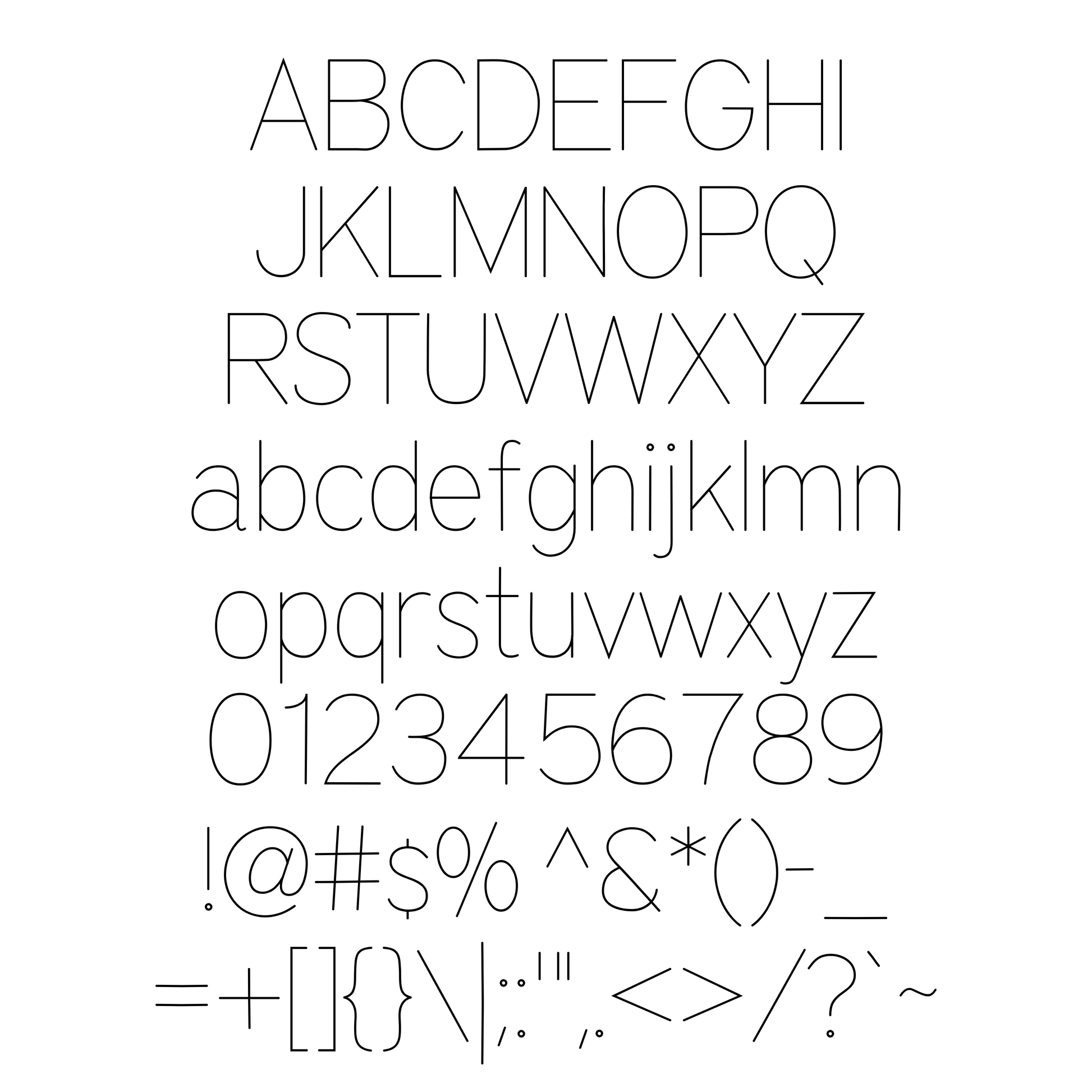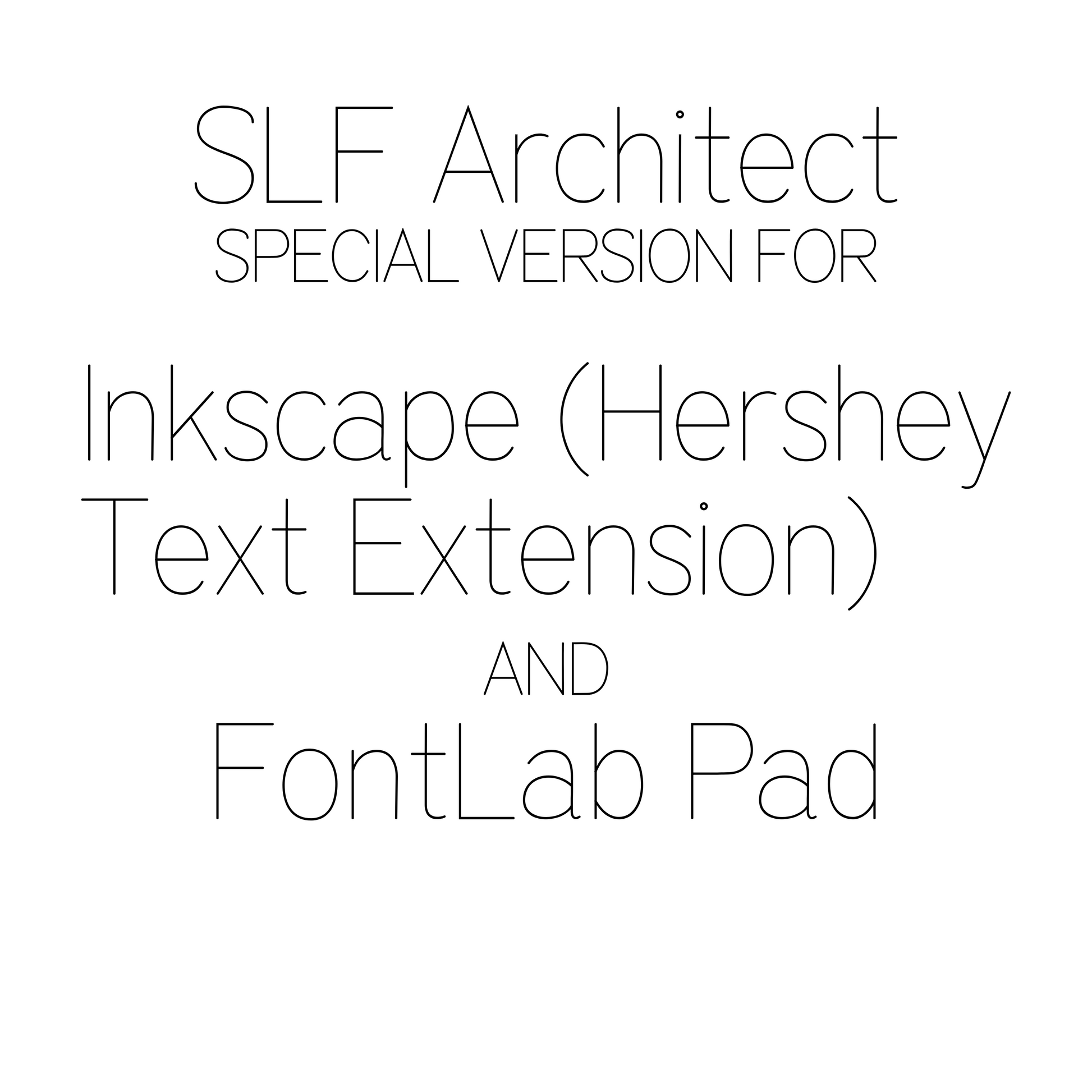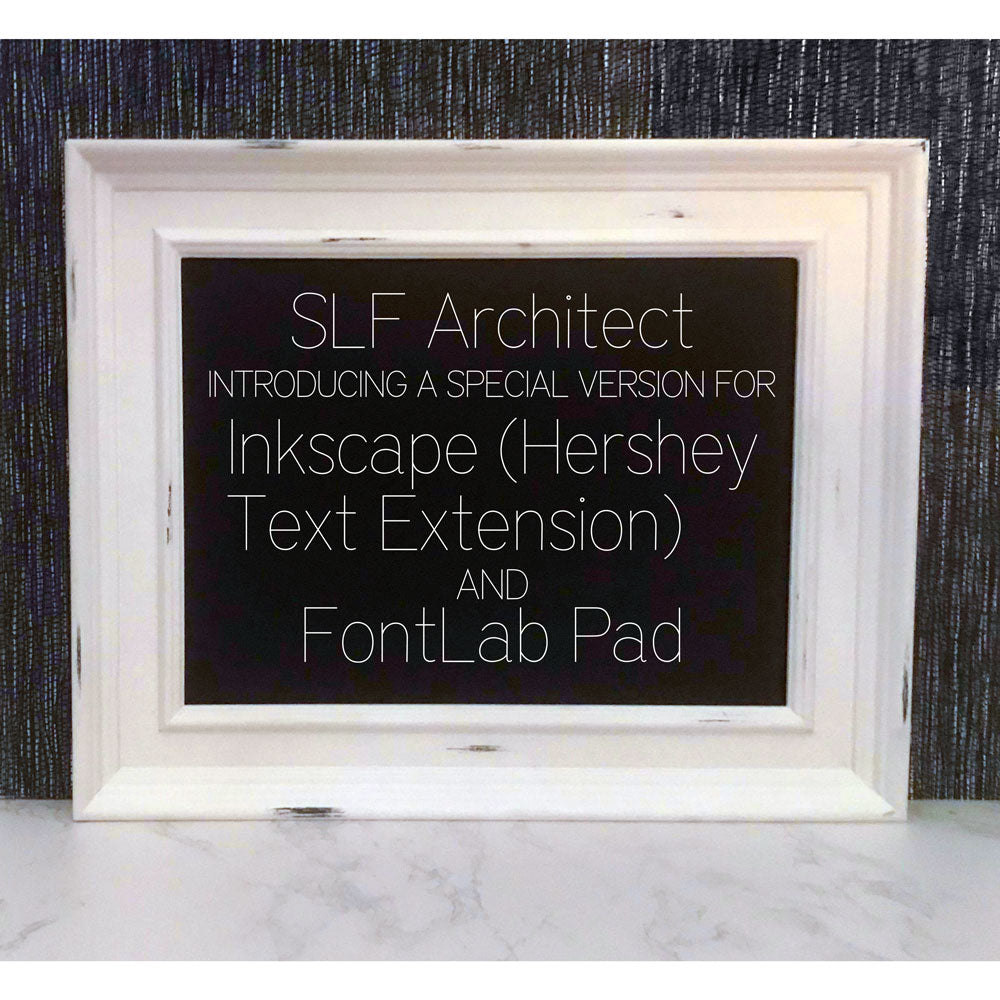
SVG Font - SLF Architect
SLF Architect - Simple and Understated for Any Occasion
This font is your go-to when you need a clean but simple font. Created with care and attention to detail, you'll find this to be just as nicely made as our others!
We are excited to bring you this brand-new format from Single Line Fonts©™! This is a true single-line font.